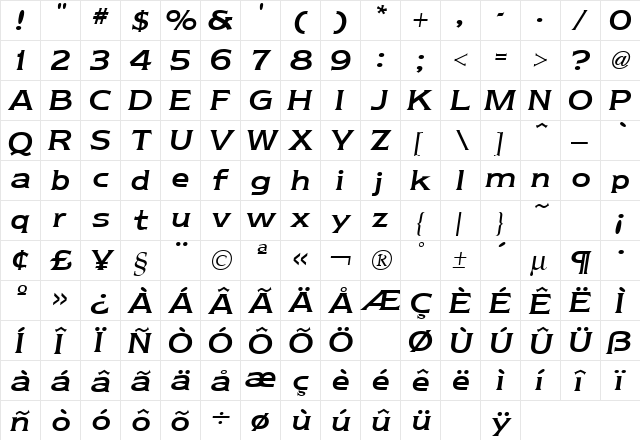
Newtext Reglr Italic
Design Context for Newtext Reglr Typeface
Newtext Reglr offers clean, dependable letterforms without strong stylistic allegiance, making it a practical choice for designers who need flexibility. Its italic angle brings a sense of urgency and motion to the letterforms.
Pro Tip: Try Newtext Reglr for annotation and caption copy alongside an upright companion — the contrast in angle creates a dynamic but ordered typographic system.